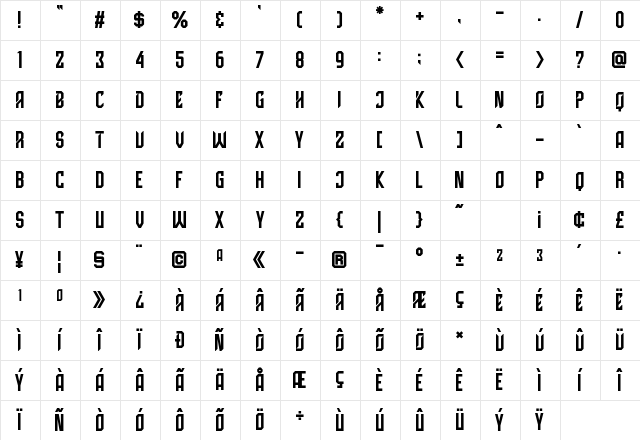
High Jersey Regular Free Font
High Jersey Regular
Foundry: Kong Font
Designer: Kong Font
Design Context for High Jersey
High Jersey brings high-energy athletic personality to the page - its confident, muscular forms are built for impact.